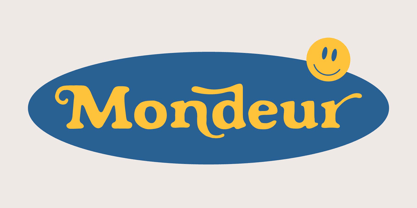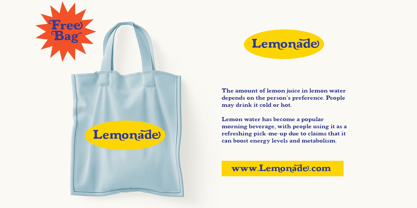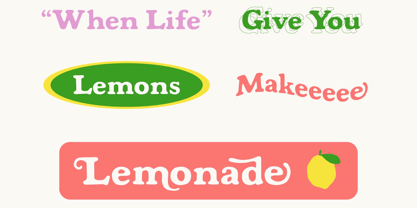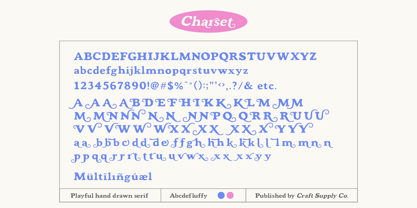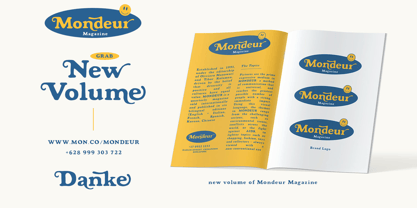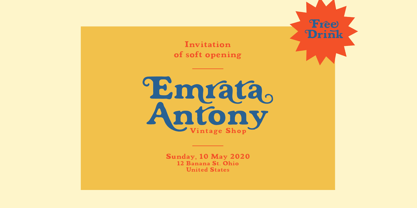
Mondeur
The Mondeur Font Family was designed by Trio Nazzar Saputra, Wahyu Hadi Yuana and published by Craft Supply Co. Mondeur contains 2 styles and family package options. More about this family
Mondeur – Playful Hand Drawn Serif. It can be used to create almost all types of design projects like print materials. Just use your imagination and your project will become more alive and look great than ever with Mondeur – Playfull Hand Drawn Serif. You want to make a greeting card or a package design, or even a brand identity, craft design, any DIY project, book title, wedding font, pop vintage design, retro design or any purpose to make your art / design project look pretty and trendy? Feel free to play with this fonts!